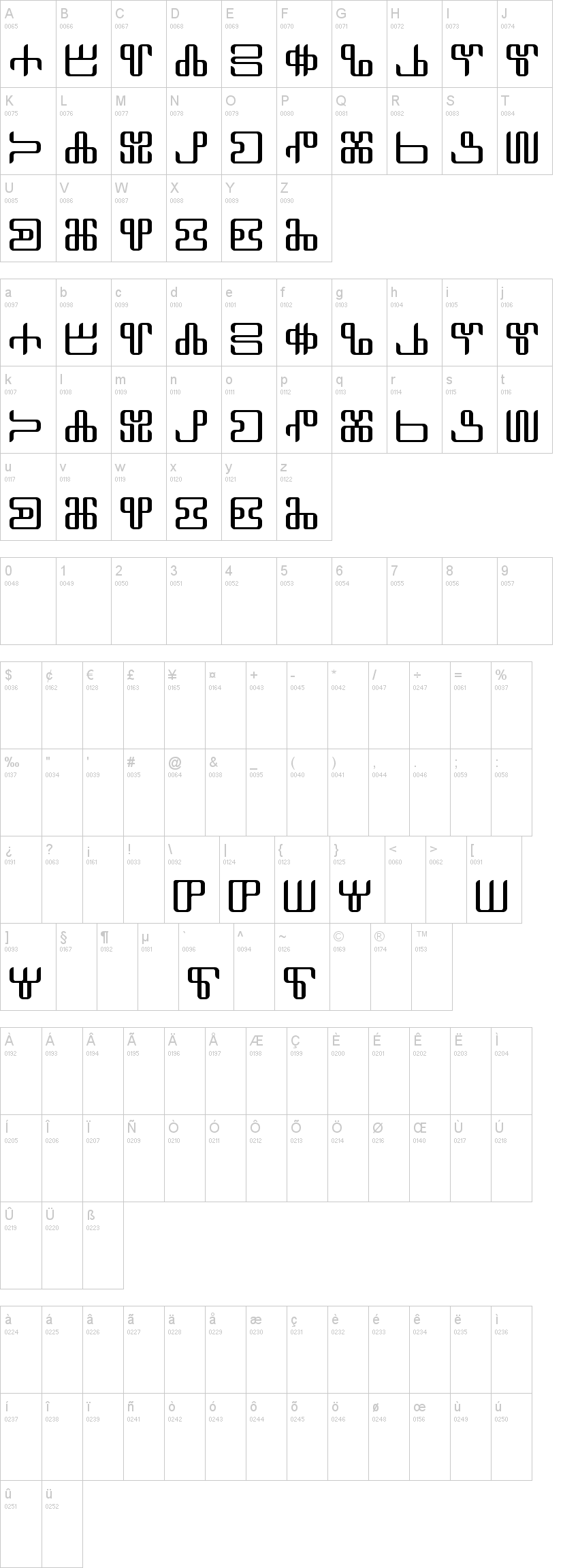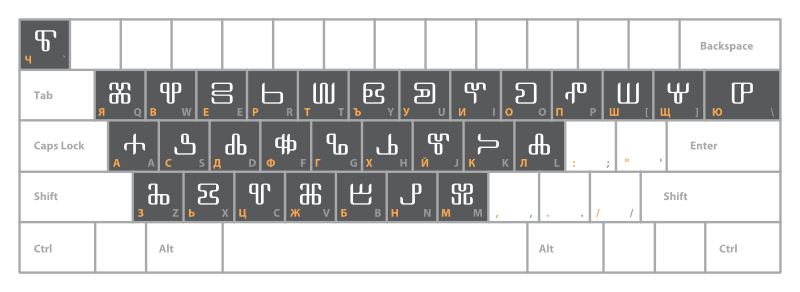
Note of the authorAn experimental font based on the now obsolete Glagolitic alphabet, reimagined in a modern aesthetic. More info: https://alphadesigner.com/fonts/neoglagolitic-alpha